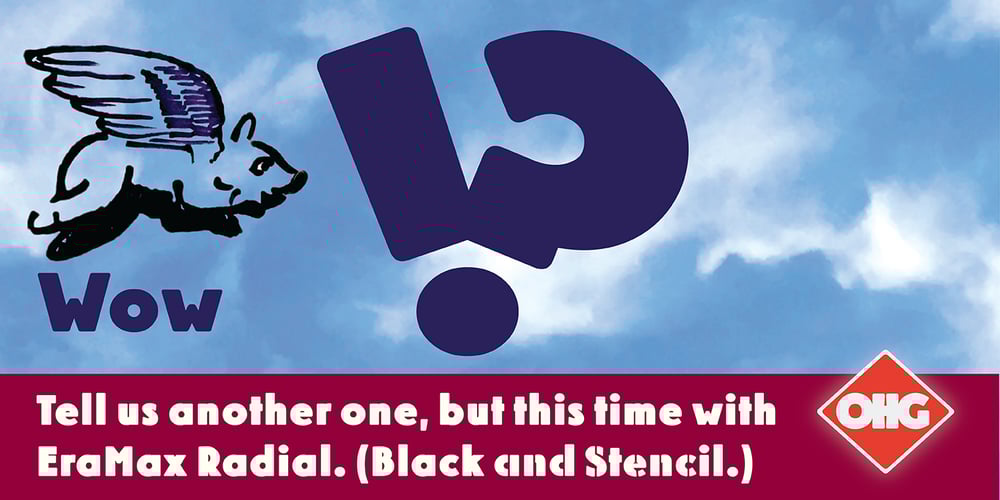
EraMax Radial Font Family was designed by Russell A. McGorman and published by Our House Graphics. EraMax Radial contains 2 styles and family package options. EraMax Radial is a geometric sans serif meant to be set BIG, for big statements. It’s the perfect face for signage, packaging posters, branding and so on and on, where a strong voice is needed. It has a modern look that will work in a retro setting. Or, should that be a vintage look that will work in a modern setting. This is the first of what is to be a series to typefaces inspired by the original hand painted signage found in the TH&B train station in Hamilton Ontario. This classic Art Deco, Or, more precisely, Art Moderne building designed by the New York architectural firm of Fellheimer and Wagner and completed in 1933. The original lettering included about 75% of the uppercase letters only, so the balance of the uppercase and the lowercase plus all the other glyphs were extrapolated from the look and feel of the existing uppercase letters. Figures are based on the numerals on the station clock, with adjustments made to harmonised with the letters.